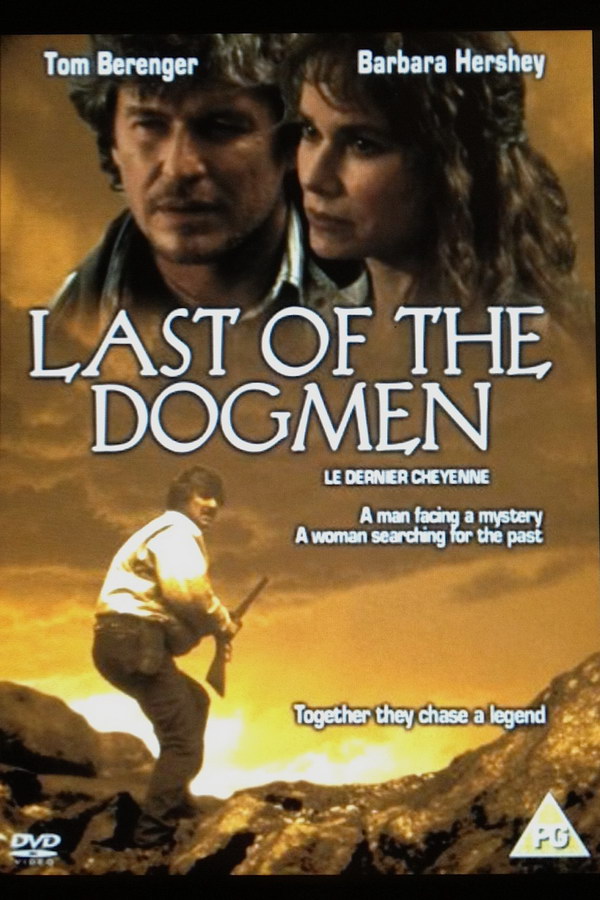
Last of the Dogmen Font
The movie title on the poster appears to be written in the font Evadare which was created by David Nalle in 1993, influenced by the styles of Rudolf Koch and Nicholas Cochin. It is a commercial font, and you can purchase it here.